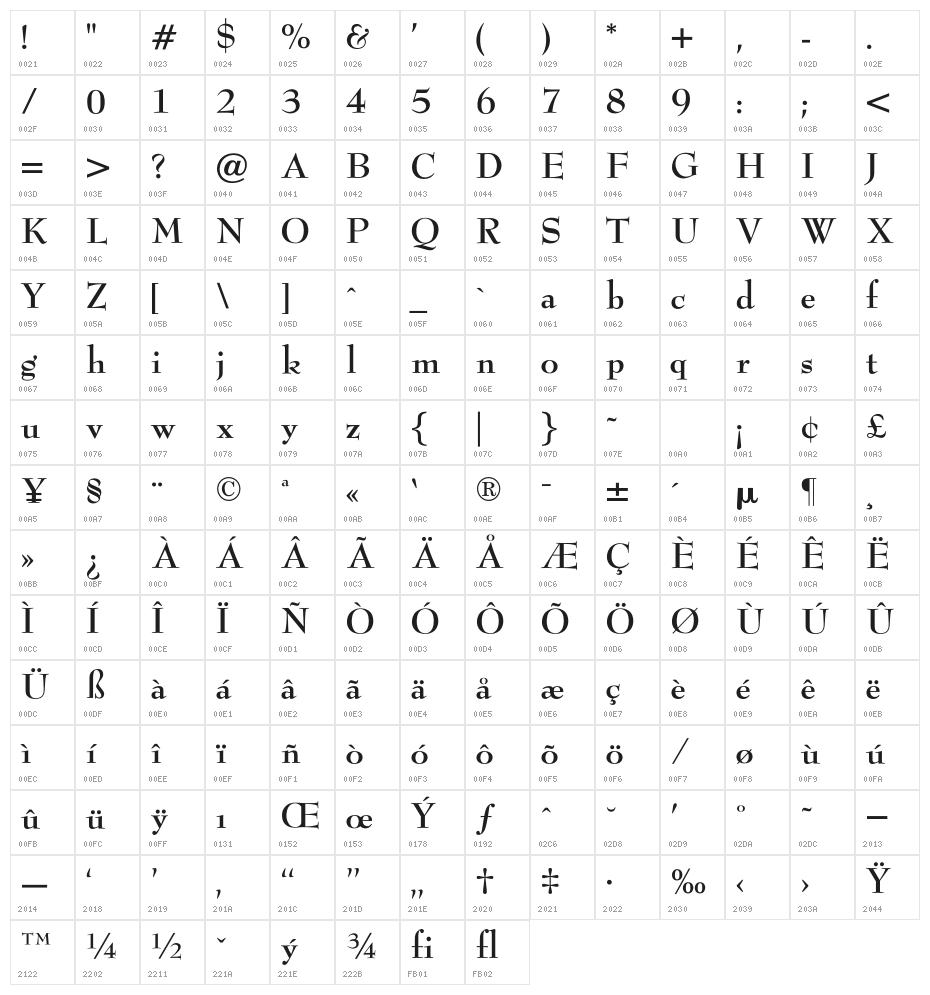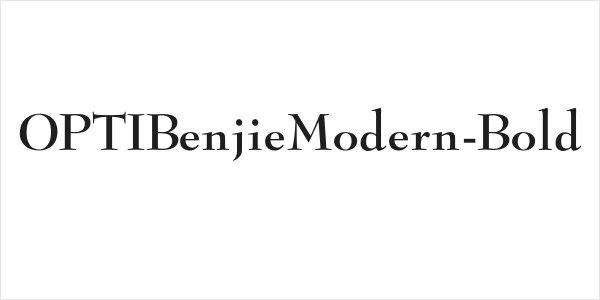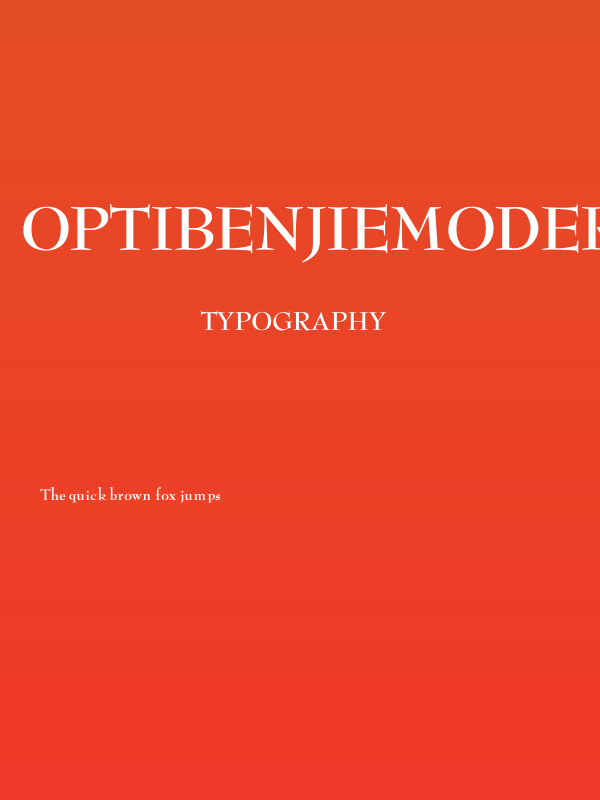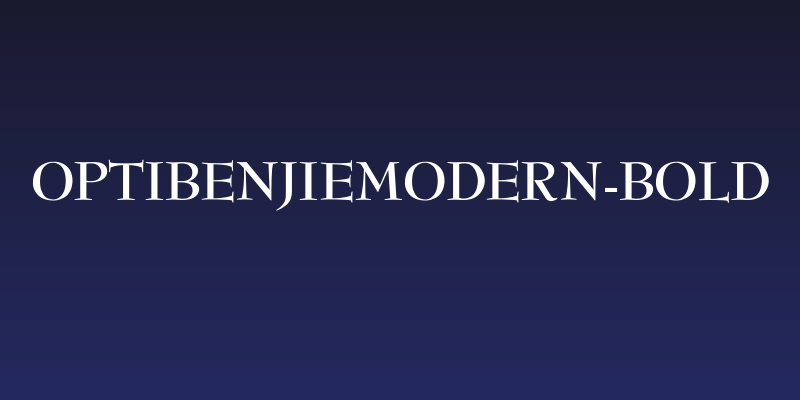
OPTIBenjieModern-Bold Font
OPTIBenjieModern-Bold Description
This font features a bold and modern serif style with sharp, angular serifs that give it a distinctive and authoritative appearance. The uppercase letters are strong and commanding, while the lowercase letters maintain a consistent and balanced design. The numerals are clear and easy to read, with a slightly traditional flair that complements the overall modern aesthetic. Special characters are well-integrated, maintaining the font's cohesive style. The font's design is suitable for making a strong visual impact, combining modernity with a touch of classic elegance.
| Proposed Projects | Ideal for branding, headlines, editorial design, and any project requiring a bold, authoritative typeface. |